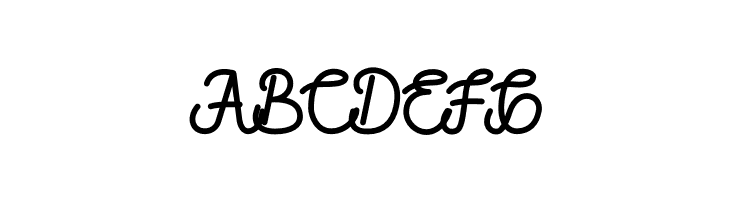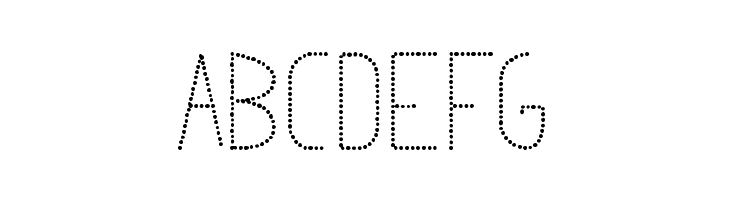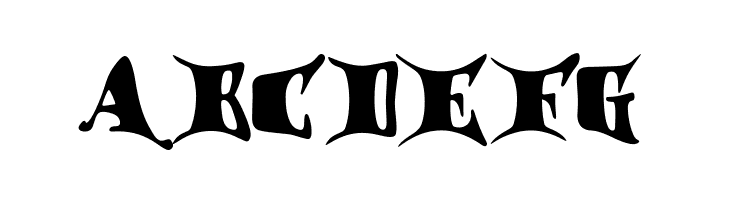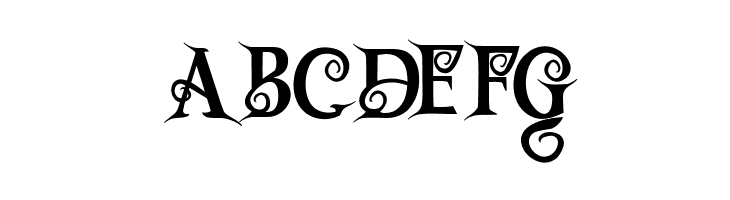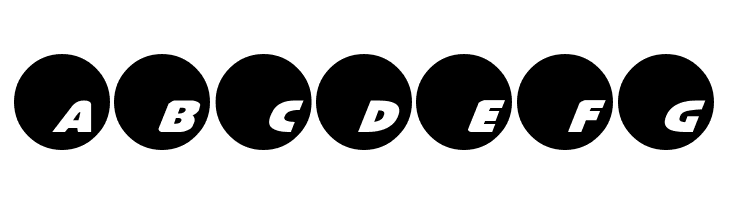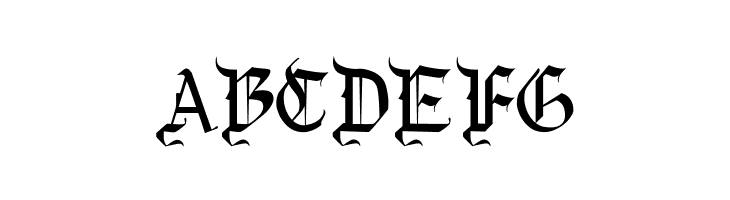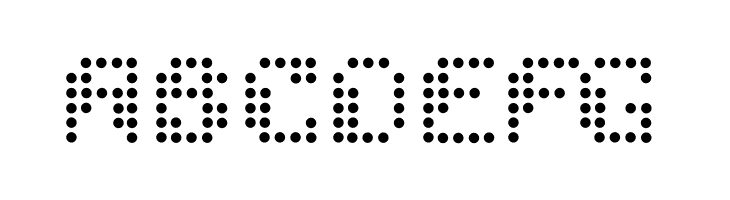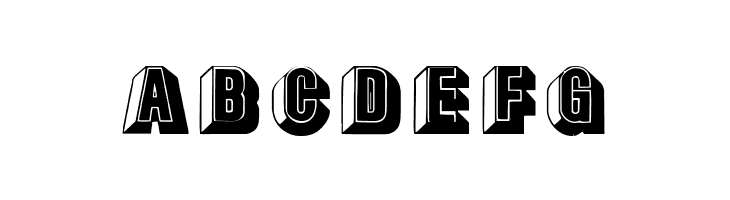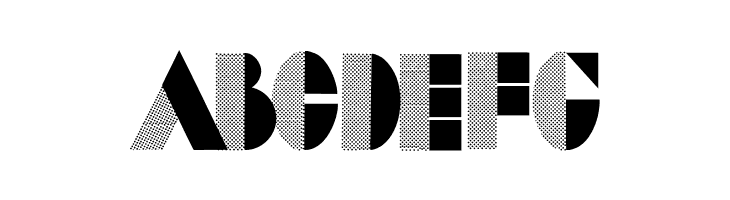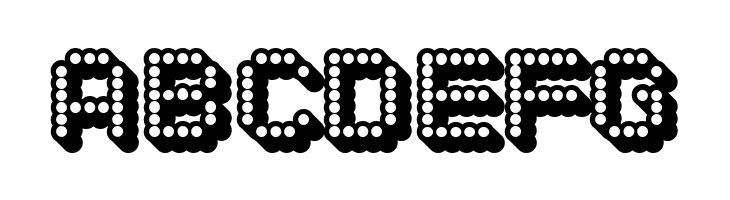
• Dortmund
• Dortmund Outline
A bold, graffiti-inspired outlined font with angular, geometric characters.
• Dos Campos
A playful, handwritten font with bold, dynamic strokes and a creative flair.
• Dos Campos Blod
A bold, playful handwritten font with rounded, irregular characters.
• Dos Equis NF
A bold, geometric font with Art Deco influences and high contrast strokes.
• Dot.com
A bold, futuristic font with italicized characters enclosed in circles.
• Dot.com Outline
A bold, outlined font with a modern, geometric style.
• Dot.com Pro
A bold, italicized font with a futuristic and dynamic style, featuring uppercase letters in circles.
• Dot.com Reverse Pro
A bold, geometric font with characters in circular backgrounds, offering a modern and futuristic look.
• DotCapsMK
A bold, geometric font with halftone patterns and sharp angles.
• Dotchaos
• DOTLED
A bold, dotted font with a vintage, textured style.
• DOTLED
A bold, decorative serif font with a unique dotted texture.
• Dots All For Now 3D JL
• DotsCapsTwo
A bold, decorative font with geometric patterns and high contrast.
• Dotted Newspaper
• Doubbble Free
• DoUbLe CoLoR St
A bold, playful font with a two-tone color scheme and retro digital display style.
• DoubleBrokenTextura
A bold, intricate Blackletter font with a medieval aesthetic.
• DoubleFaces
A bold, 3D font with a strong, layered appearance and thick black outlines.
• DoubleVision
A bold, dynamic font with a double-layered effect and modern aesthetic.
• downloadme
A playful, casual handwritten font with smooth, rounded edges and consistent stroke width.
• Dowted remix tfb
A modern, dotted font with a playful and unique style.